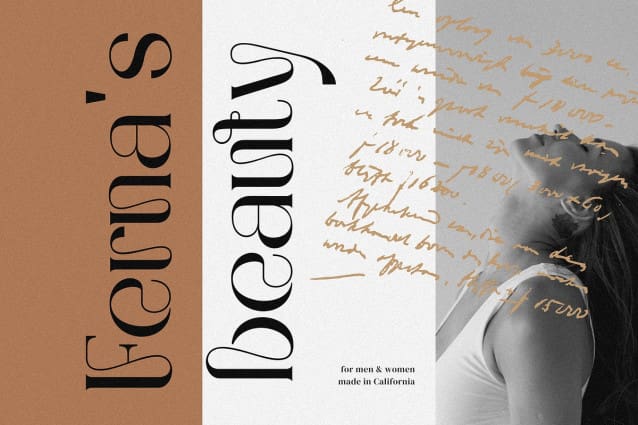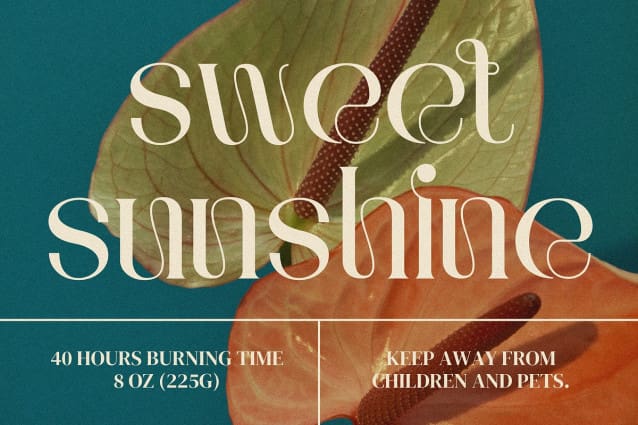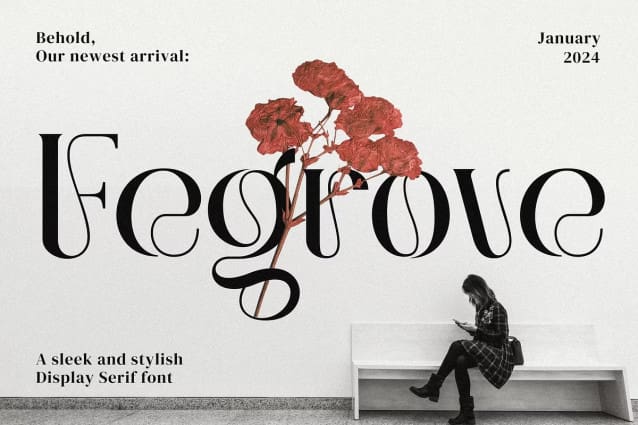
Fegrove Font
Fegrove Font: A Sleek and Stylish Display Serif Font. This is the pinnacle of sophistication and elegance in the field of display serif fonts. With its sleek lines, graceful curves, and meticulous attention to detail, Fegrove Font effortlessly captures attention and elevates any design project it graces.
Crafted with precision and finesse, Fegrove exudes a timeless elegance that is perfect for projects seeking a touch of sophistication. Whether you’re designing a luxury brand identity, a high-end fashion editorial, or an upscale event invitation, Fegrove lends an air of exclusivity and class to any project.
Its versatility knows no bounds, effortlessly transitioning from bold headlines to delicate details with ease. Each letter is meticulously crafted to maintain perfect balance and harmony, ensuring that your text exudes a sense of refined beauty and professionalism. It is not just a font; it’s a statement. It speaks volumes about taste, discernment, and attention to detail. Elevate your designs to new heights with Fegrove Font, the pinnacle of sleek and stylish display serif fonts.